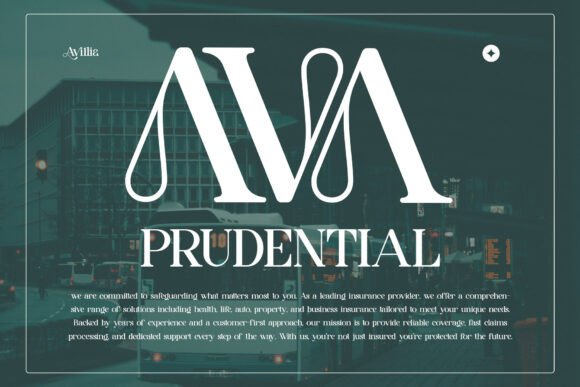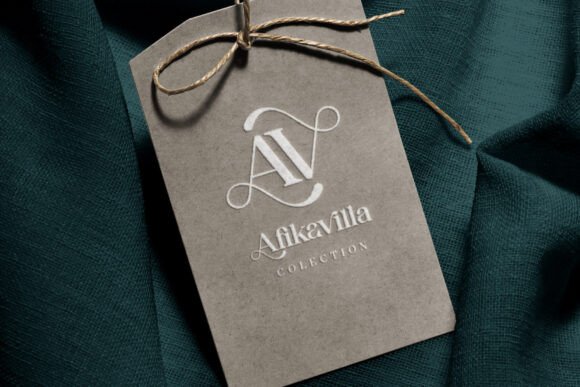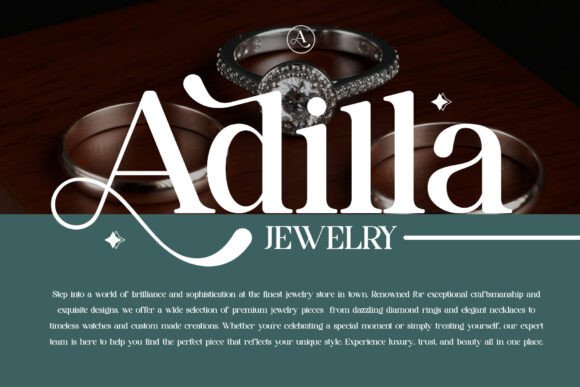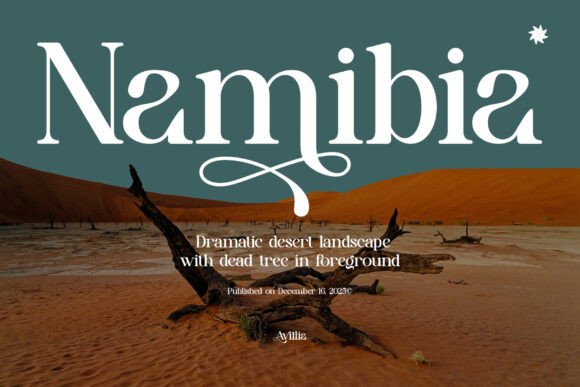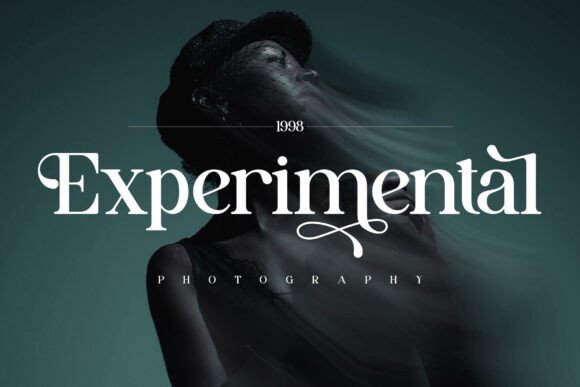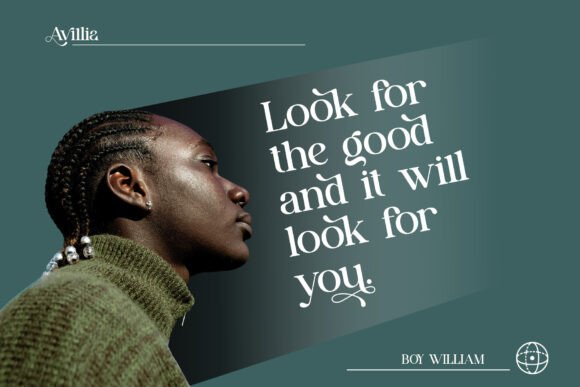
Have you ever stared at a blank canvas, waiting for inspiration to strike? The moment when everything falls into place, and your creative vision comes alive. That’s exactly what happened when I discovered the Avillia Font. Its elegant and bold serif style has been the missing piece in my design puzzle, and I’m excited to share it with you.
The Avillia Font is more than just a font – it’s a versatile tool for designers who crave a unique and sophisticated look. Whether you’re creating wedding invitations, stationary art, or social media posts, this font is sure to elevate your designs and leave a lasting impression. Its value lies in its adaptability, making it an essential addition to any designer’s toolkit.
Avillia Font Key Features
- Font Family: Avillia Font
- Unique Characteristics: Avillia Font features a unique blend of modern and elegant script styles, making it suitable for various design applications, including wedding invitations, branding, and packaging design.
Avillia Font Review
Overall, I have mixed feelings about the Avillia font. On one hand, it’s beautiful and has a lot of potential.
- Unique aesthetic: Avillia has a distinctive and eye-catching design that sets it apart from other fonts.
- Legibility: Despite its unique look, Avillia is surprisingly easy to read, especially at larger sizes.
- Creative applications: Avillia’s quirky style makes it perfect for creative projects, such as branding, packaging, and advertising.
- Limited versatility: Avillia’s bold, playful style may not be suitable for more formal or traditional projects.
- Difficulty in small sizes: While Avillia is readable at larger sizes, it can become fuzzy and difficult to read at smaller sizes.
- May not be suitable for body text: Avillia’s unique style makes it better suited for headlines and titles, rather than body text.
Overall, I think Avillia is a great font for designers who want to add a touch of creativity and whimsy to their projects. However, it may not be the best choice for every project, and its limitations should be taken into consideration.
Getting the Most Out of Avillia Font
To get the most out of Avillia Font, use it in combination with other design elements to create a cohesive look. Experiment with different font sizes, colors, and styles to add depth and visual interest to your design.
Avillia Font is ideal for creating elegant and sophisticated designs, such as:
- Magazine and newspaper articles
- Book covers and interior design
Alternatives to Avillia Font
Lato is a modern sans-serif font that is highly legible and versatile. It is ideal for use in digital design, including websites, apps, and digital publications. Lato is similar to Avillia in its clean and minimalist aesthetic, but it has a more geometric feel and a wider range of weights.
Montserrat is a sans-serif font that is designed for urban environments and is inspired by the typography of Buenos Aires. It is a popular choice for digital design and is known for its strong, geometric feel. Montserrat is similar to Avillia in its modern aesthetic, but it has a more dramatic feel and a wider range of weights.
Open Sans is a sans-serif font that is highly legible and versatile. It is a popular choice for digital design and is known for its clean, modern aesthetic. Open Sans is similar to Avillia in its clean and minimalist feel, but it has a more neutral tone and a wider range of weights.
Arimo Font
Arimo is a sans-serif font that is highly legible and versatile. It is a popular choice for digital design and is known for its clean, modern aesthetic. Arimo is similar to Avillia in its clean and minimalist feel, but it has a more geometric feel and a wider range of weights.
Q: What is the font size range supported by Avillia Font?
Avillia Font supports font sizes ranging from 6pt to 72pt, making it suitable for a wide range of design applications, from small text to large headings.
Q: Can I use Avillia Font for digital projects, such as mobile apps and websites?